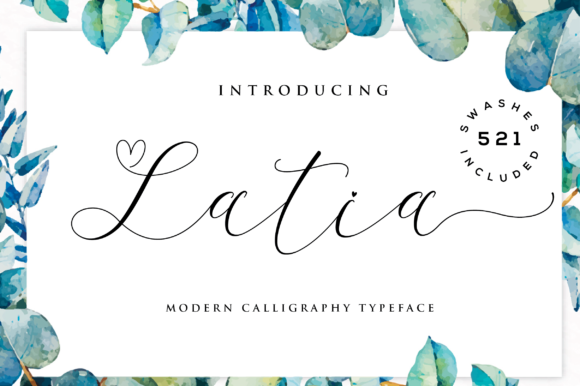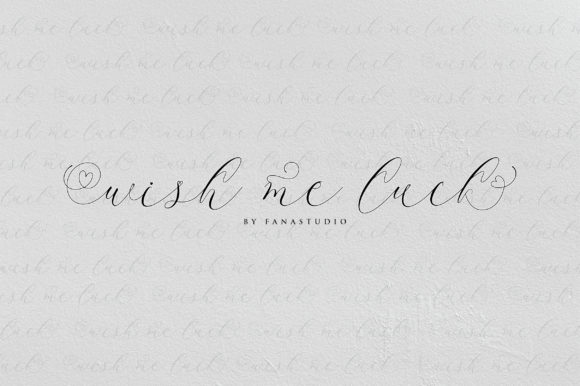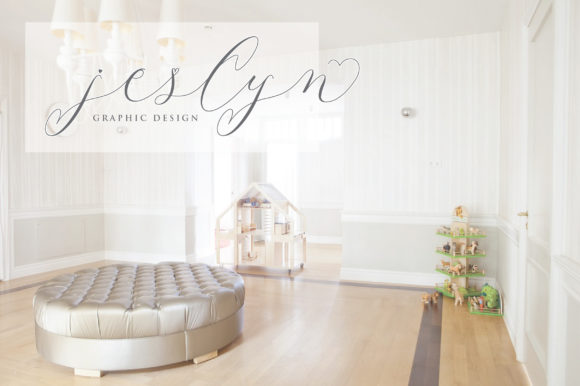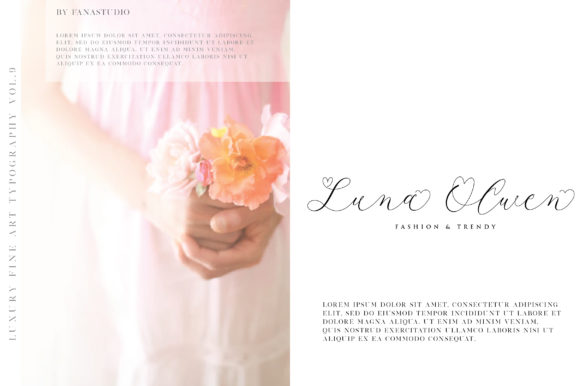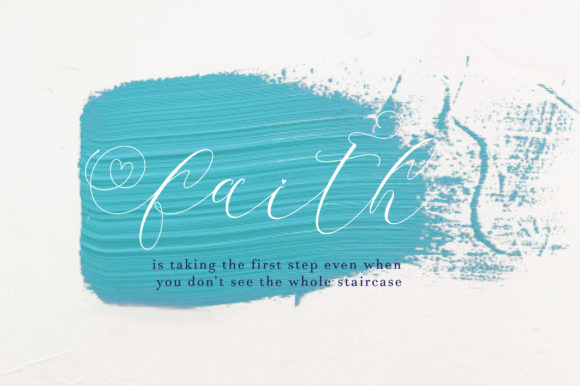
About Latia Script Font
The Latia is a beautiful script font. It offers a personal touch and is perfect for adding a elegant, classy, and modern look to your designs.
It’s perfect for logos & branding, invitations, stationery, wedding designs, social media posts, advertisements, product packaging, product designs, labels, photography, watermarks, special events or anything that needs a handwriting taste.